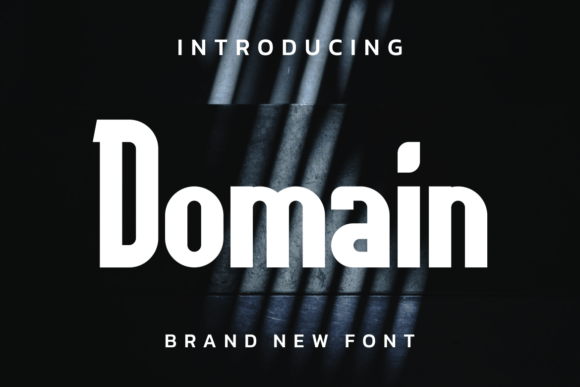
Introducing Domain, a sans serif font that radiates sophistication with its graceful curves and contemporary aesthetics. This typographic masterpiece is not just a collection of letters; it's an artistic expression that elevates your designs to new heights of elegance and innovation.
Embark on a design journey filled with possibilities as you explore the boundless creativity offered by Domain. Its clean lines and flowing glyphs lend themselves effortlessly to fashion branding, adding a touch of modern luxury to your creations. It's a font that speaks volumes without uttering a single word, conveying messages with an understated charm that captivates and enchants.
Unleash your artistic vision with Domain, a font that transforms words into works of art. Its delicate strokes and harmonious proportions create a visual symphony, enhancing the impact of your designs. Whether you're crafting logos, posters, brochures, or website layouts, Domain is your trusted companion, effortlessly elevating your concepts into masterpieces.
Visualize your brand adorned with Domain's timeless elegance, attracting customers with its inherent magnetism. Its versatile nature allows it to seamlessly adapt to various design styles, from minimalist and contemporary to vintage and retro. Domain is more than just a font; it's a style statement, a reflection of your discerning taste and dedication to excellence.
Experience the joy of effortless creativity as you mold Domain into your design masterpiece. Its meticulously crafted curves and contours ensure exceptional legibility, making it a joy to read and admire. Watch as your ideas take flight, beautifully rendered in the sophisticated embrace of Domain, leaving a lasting impression on your audience.
Domain is not merely a font; it's an investment in design excellence. Its versatility extends beyond branding materials, lending its charm to editorial designs with equal finesse. Imagine your words dancing across the page, gracefully adorned with Domain's timeless beauty. Every sentence becomes a visual treat, capturing readers' attention and leaving them enthralled by your design prowess.
Discover the infinite possibilities that await you with Domain, a font that transcends the boundaries of creativity. Let your imagination soar as you explore its endless applications, from captivating social media posts to visually stunning presentations. Domain is your artistic ally, empowering you to communicate your message with style and sophistication.